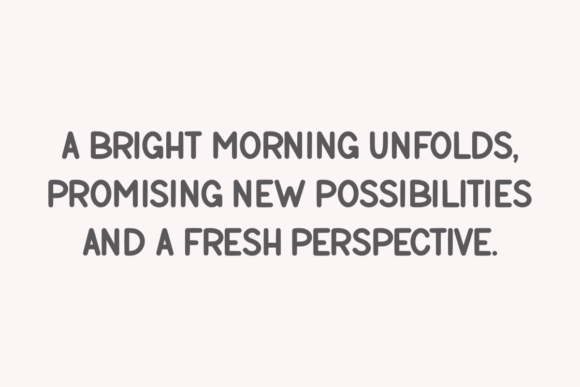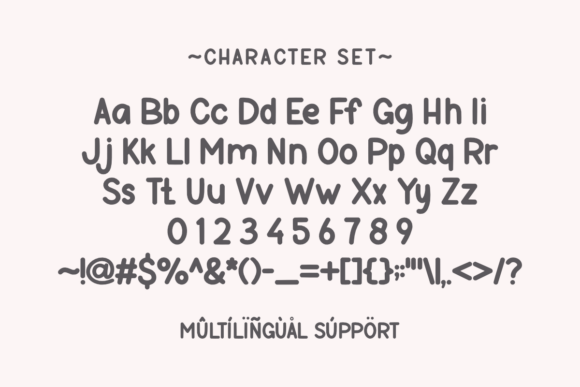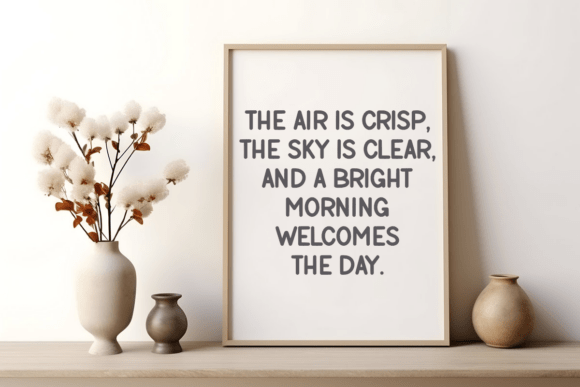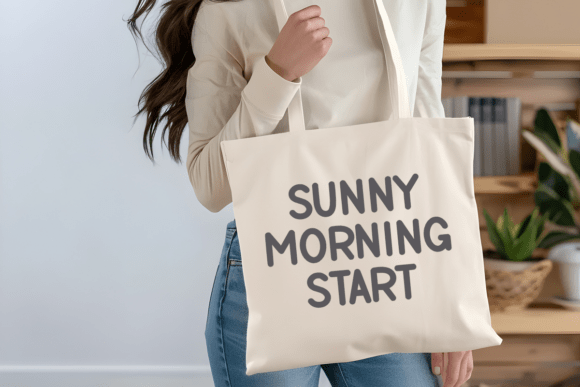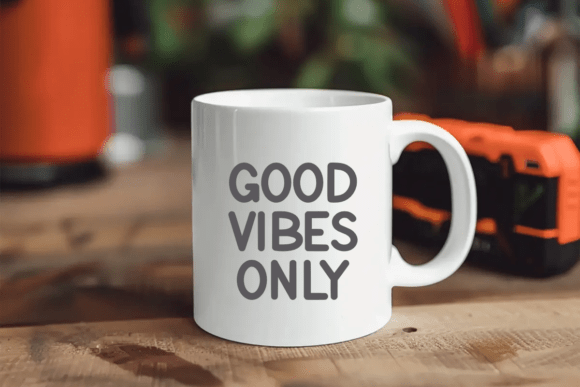
Introducing Bright Morning Font: The Perfect Addition to Your Design Arsenal
Are you tired of using the same old fonts for your designs? Look no further than Bright Morning Font, a clean and cheerful handwritten font that’s sure to bring a touch of warmth and simplicity to your creations. With its rounded characters and easy readability, Bright Morning Font is perfect for a variety of design projects, from morning quotes and planners to product packaging and kids-themed designs.
What Makes Bright Morning Font So Special?
Bright Morning Font is a unique and refreshing addition to the world of typography. Its clean and cheerful design makes it perfect for designers and crafters looking to add a personal touch to their work. The font’s rounded characters give it a friendly and approachable feel, making it ideal for designs that require a warm and inviting tone.
One of the standout features of Bright Morning Font is its ease of readability. The font is carefully crafted to be clear and concise, making it perfect for use in a variety of design projects, from inspirational quotes and social media graphics to product labels and packaging.
Perfect for Morning Quotes and Planners
Bright Morning Font is a natural fit for morning quotes and planners. Its cheerful and uplifting design makes it perfect for inspiring and motivating messages, and its easy readability ensures that your quotes and messages will be easily understood by your audience.
Whether you’re creating a social media graphic, a printable planner, or a inspirational quote, Bright Morning Font is the perfect choice. The font’s clean and simple design makes it easy to pair with other design elements, and its friendly tone is sure to resonate with your audience.
Great for Product Packaging and Kids-Themed Designs
Bright Morning Font is also a great choice for product packaging and kids-themed designs. The font’s playful and cheerful design makes it perfect for use on product labels, packaging, and marketing materials, and its easy readability ensures that your message will be easily understood by your target audience.
For kids-themed designs, Bright Morning Font is a great choice for creating fun and engaging graphics, such as children’s book titles, nursery rhymes, and educational materials. The font’s friendly and approachable tone is sure to delight kids and parents alike.
Why Choose Bright Morning Font?
• Clean and Cheerful Design: Bright Morning Font features a clean and cheerful design that’s perfect for a variety of design projects.
• Easy Readability: The font’s easy readability makes it perfect for use in designs where clarity is key.
• Rounded Characters: The font’s rounded characters give it a friendly and approachable tone that’s perfect for designs that require a warm and inviting feel.
• Versatile: Bright Morning Font is versatile and can be used in a variety of design projects, from morning quotes and planners to product packaging and kids-themed designs.
Bright Morning Font is a unique and refreshing addition to the world of typography. Its clean and cheerful design, easy readability, and friendly tone make it perfect for a variety of design projects. Whether you’re a designer, crafter, or DIY enthusiast, Bright Morning Font is a great choice for adding a personal touch to your work. So why wait? Download Bright Morning Font today and start creating beautiful and inspiring designs that will delight your audience!